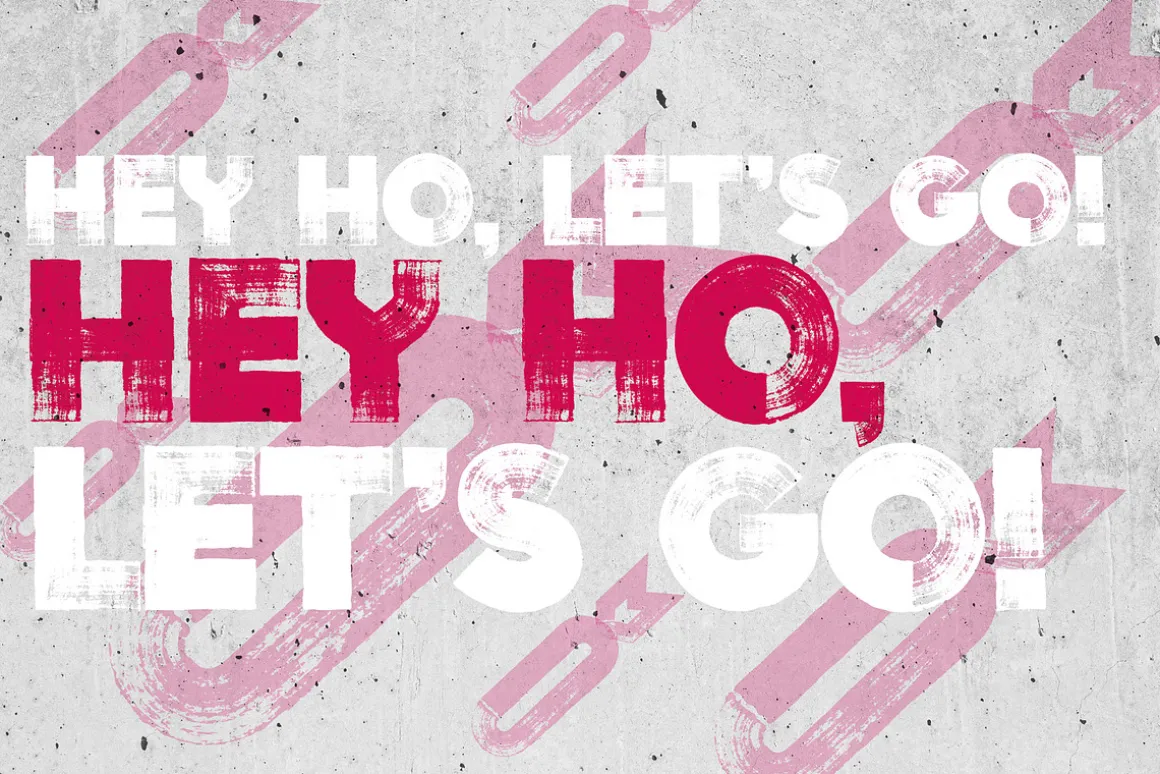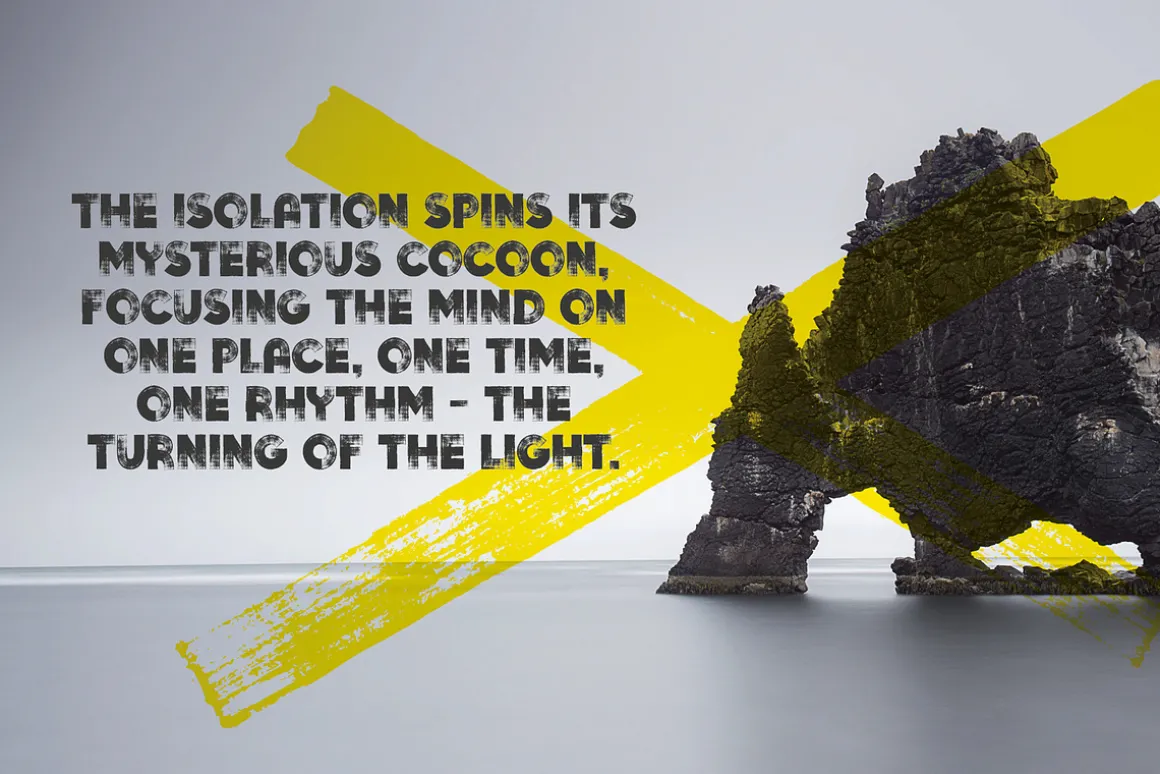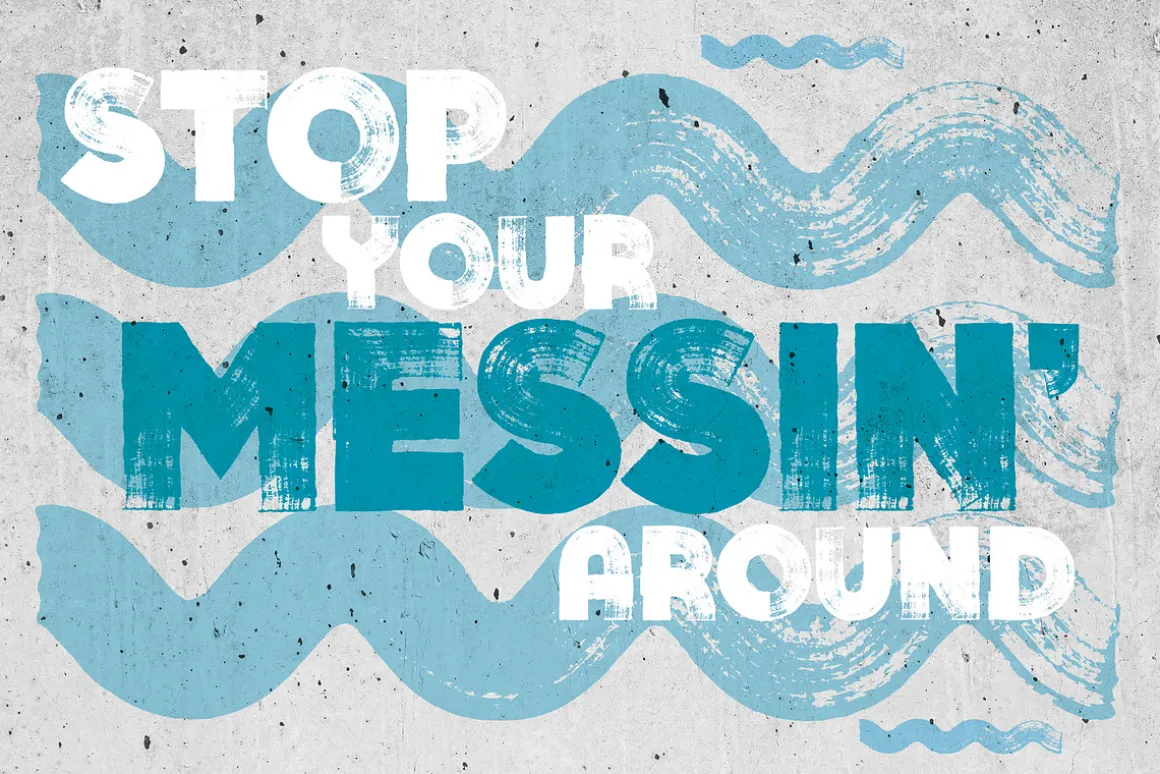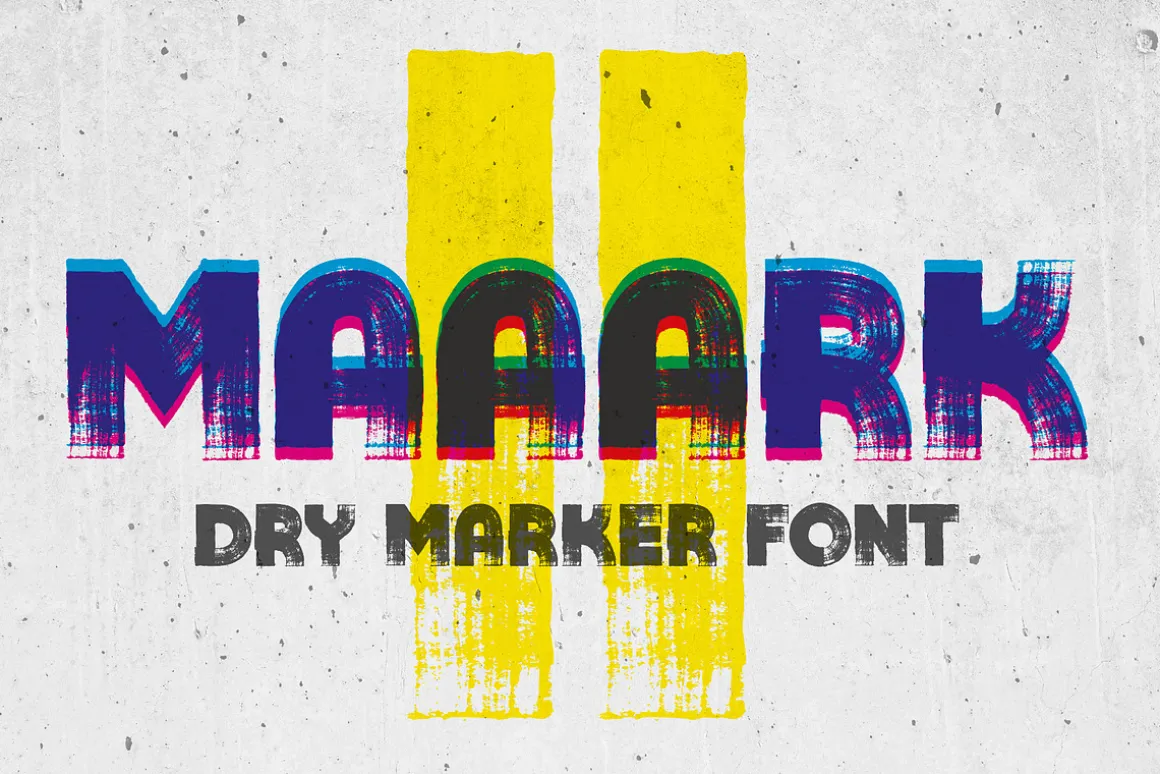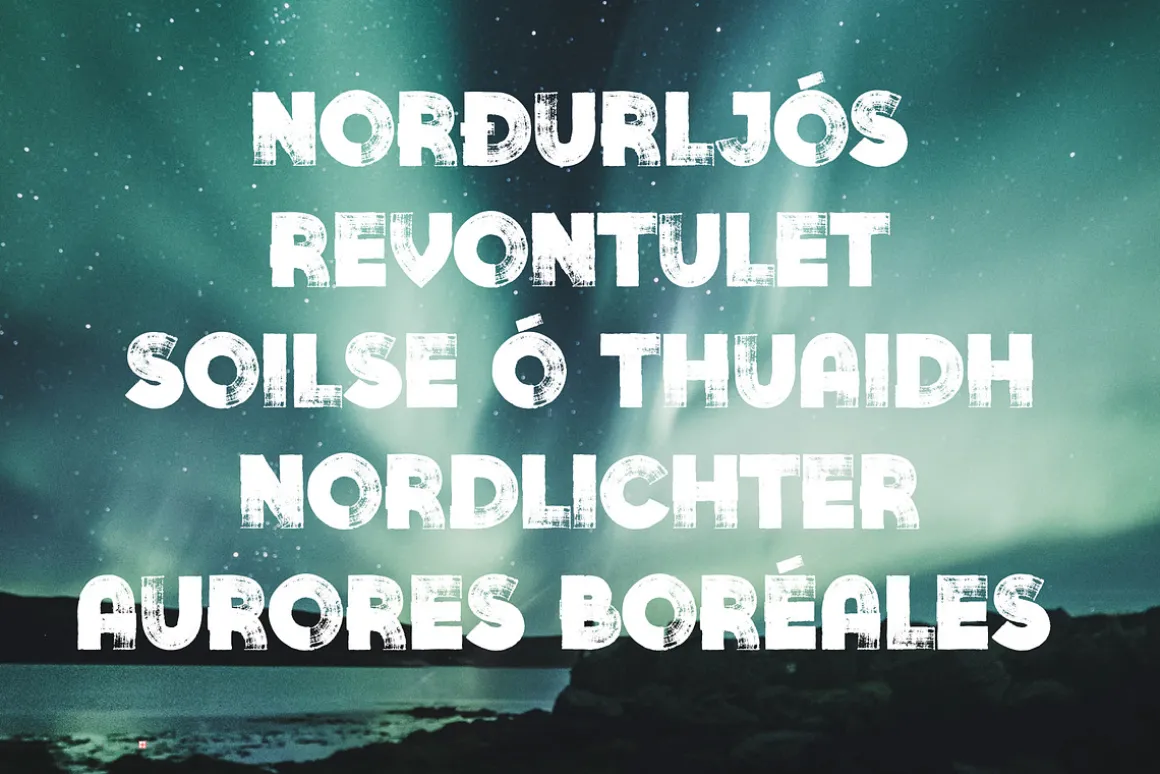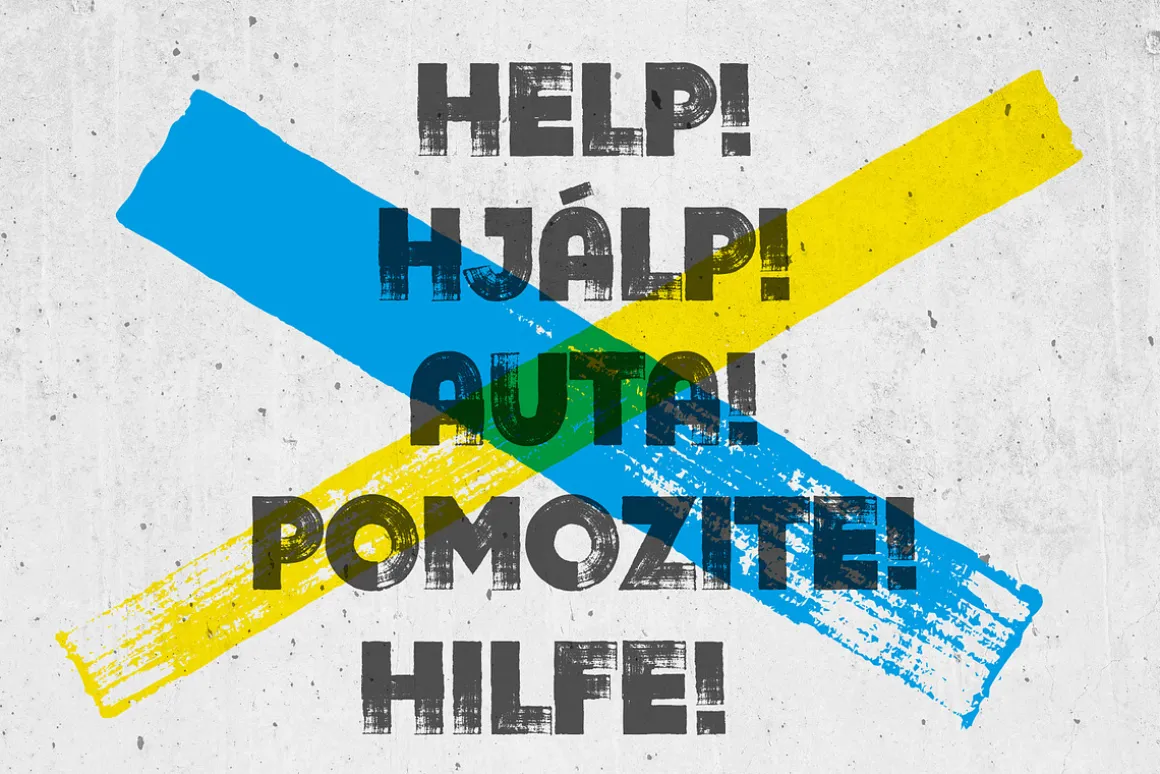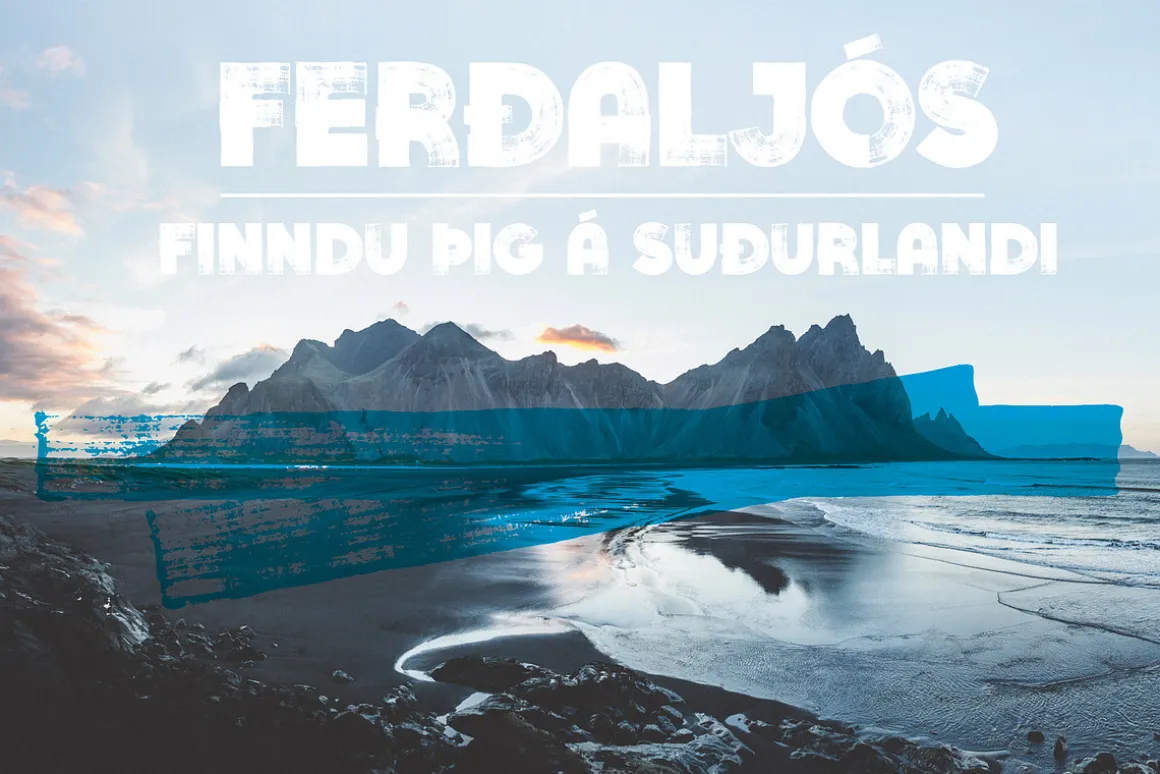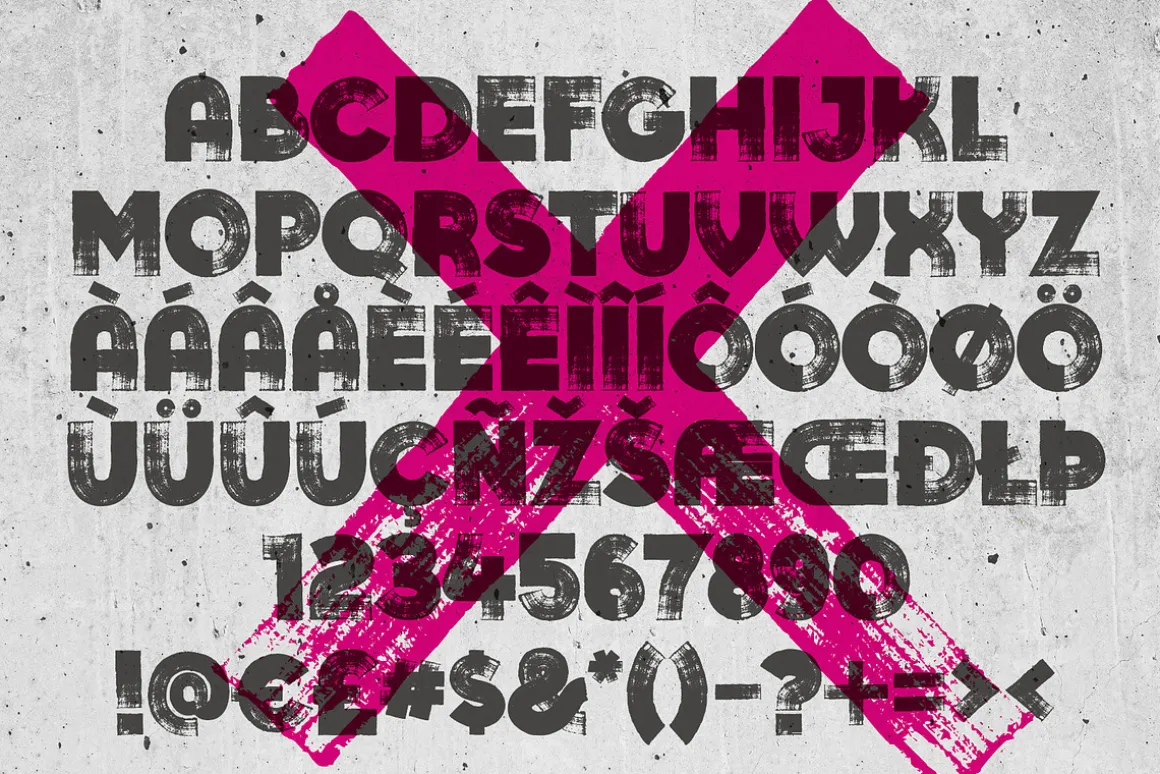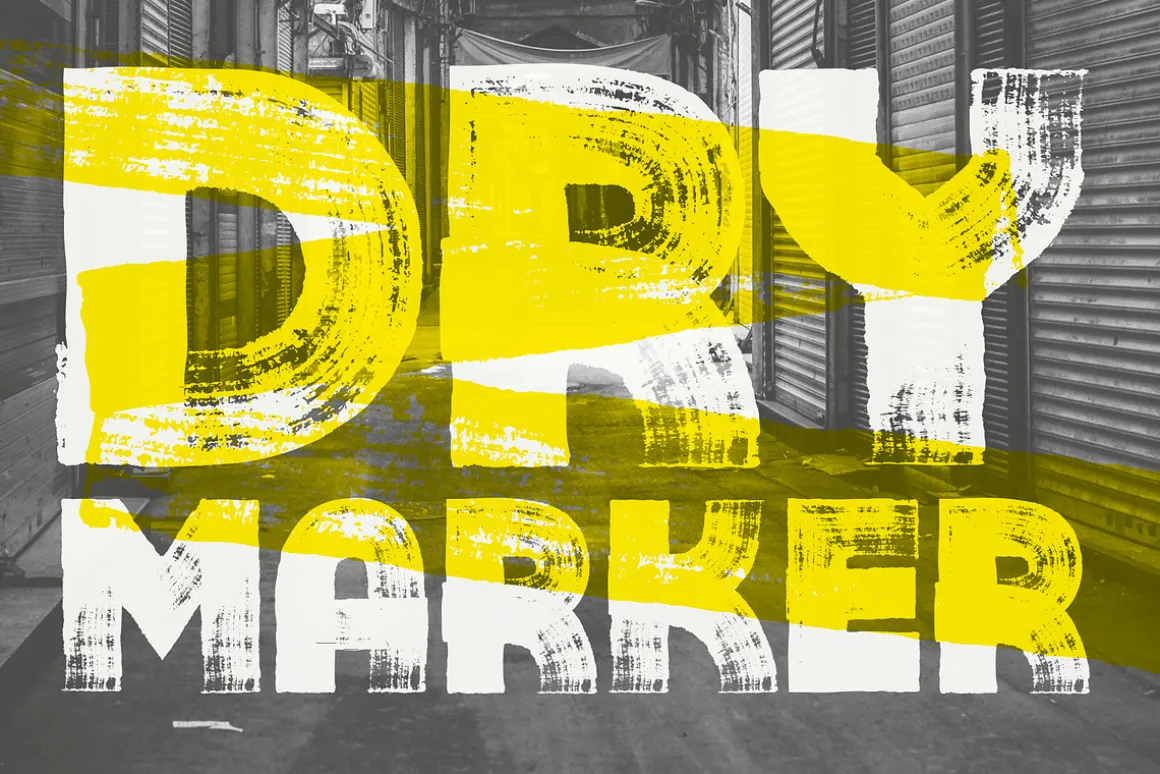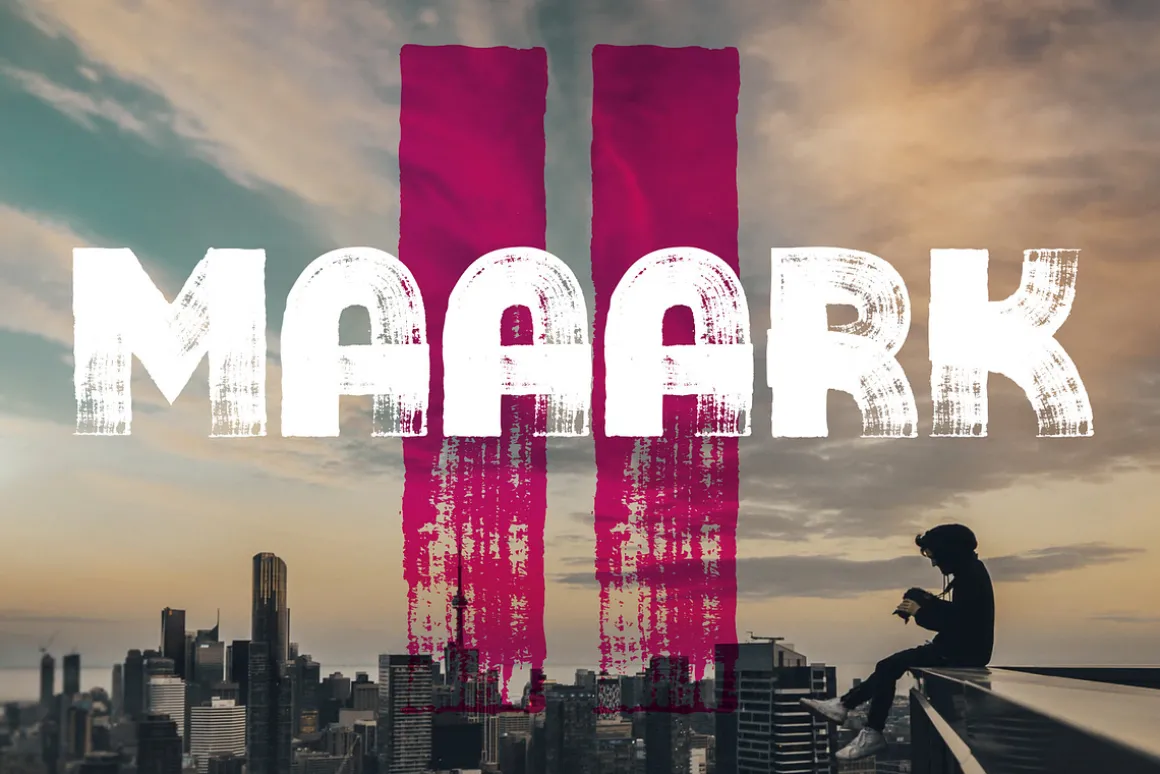
Maaark 2 is a super cool, super dry, marker style font. It’s super detailed, so it will still look good on your super massive projects. Make your maaark with some grafitti, protest posters or a fashion magazine spread… Maaark 2’s a super unique font that will always grab attention!